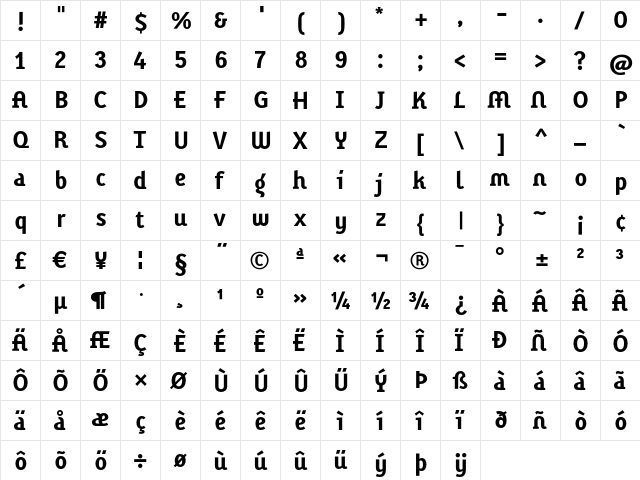
KarbidDisplay Bold
Design Context for KarbidDisplay Typeface
KarbidDisplay is built around its visual character rather than neutral utility — its distinctive forms are designed to make an impression at display sizes. Its bold stroke weight gives it real presence on the page.
Font Pairing: Pair with a clean neutral sans-serif for body copy to let KarbidDisplay's character lead without overwhelming the composition.
Pro Tip: Use KarbidDisplay exclusively at display sizes — it was designed to be seen, not read at length. Let a neutral companion handle body copy.